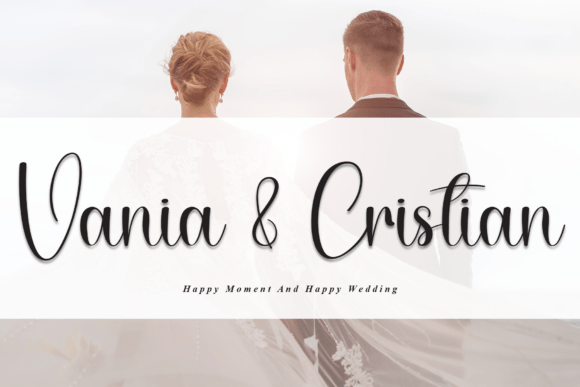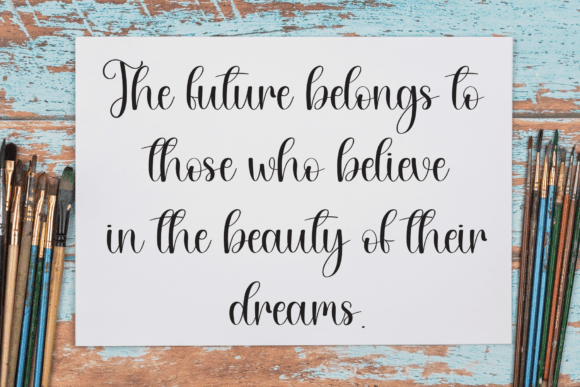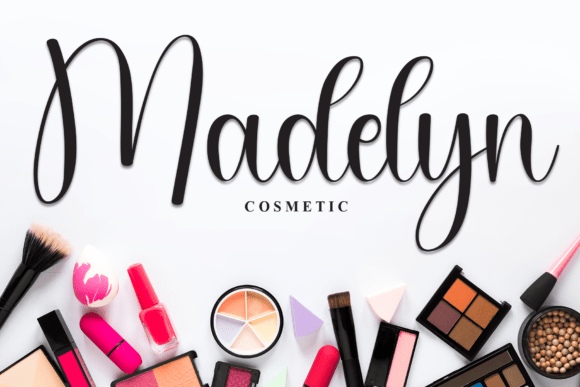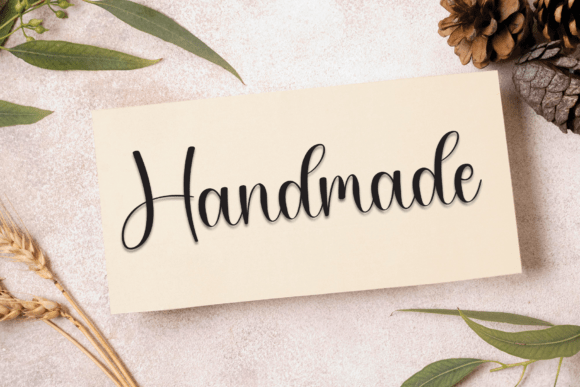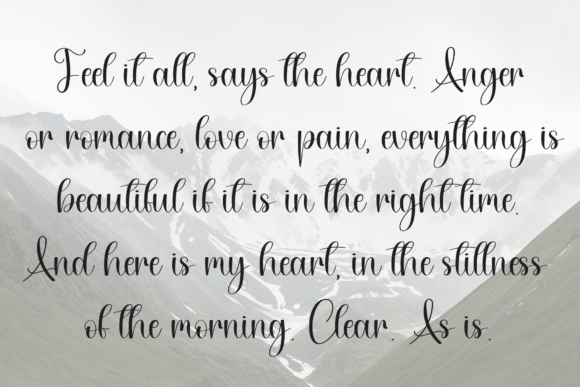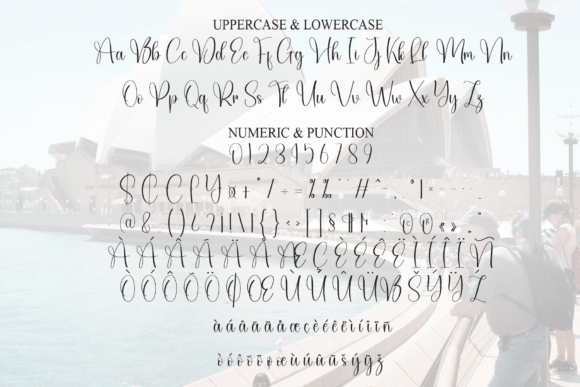
Australian Font: Elevate Your Design with Elegance and Modern Flair
In the world of typography, fonts play a crucial role in conveying the tone and personality of a brand, project, or creative endeavor. Among the myriad of font styles available, handwritten script fonts have gained immense popularity for their ability to add a personal touch to designs. One such font that has captured the attention of designers and crafters alike is the Australian Font. Described as a stylish handwritten script font, Australian combines elegance with a modern flair, making it an ideal choice for a wide range of applications.
The Charm of Australian Font
Australian Font is characterized by its flowing strokes and organic curves, which bring a sense of warmth and sophistication to any project. Its elegant appearance is balanced with a modern touch, making it versatile enough to be used in various contexts, from branding and invitations to social media graphics. This font’s unique blend of classic and contemporary elements allows designers to create visually appealing and engaging content that stands out.
Key Features of Australian Font
- Elegant Handwritten Script: Australian Font boasts a beautiful, flowing script that mimics the elegance of handwritten text, adding a personal and refined touch to designs.
- Modern Flair: With its subtle modern twists, this font ensures that your designs look current and appealing to contemporary audiences.
- Versatility: Its adaptability makes it suitable for a wide range of projects, including logos, invitations, social media posts, and more.
- Easy to Read: Despite its elegant and cursive nature, Australian Font maintains a high level of readability, making it practical for both digital and print applications.
Applications of Australian Font
The versatility of Australian Font makes it an excellent choice for various design projects. Here are some of the key areas where this font can make a significant impact:
- Branding: Use Australian Font to create a distinctive and memorable brand identity that communicates elegance and sophistication.
- Invitations: Whether it’s a wedding invitation, a birthday party invite, or any other special occasion, this font adds a touch of class and personal warmth.
- Social Media Graphics: Elevate your social media presence with eye-catching graphics that incorporate the stylish and modern feel of Australian Font.
- Packaging: For brands looking to stand out on store shelves, Australian Font can be used to create unique and compelling packaging designs.
Tips for Using Australian Font Effectively
To maximize the impact of Australian Font in your designs, consider the following tips:
- Pair with Complementary Fonts: For optimal results, pair Australian Font with fonts that complement its elegant and modern characteristics. Sans-serif fonts can provide a nice contrast for body text.
- Adjust Letter Spacing: Fine-tune the letter spacing to ensure that the text looks cohesive and aesthetically pleasing, especially in longer pieces of text.
- Consider Size and Weight: Be mindful of the font size and weight to ensure readability across different devices and mediums.
Australian Font is a stylish and versatile handwritten script font that brings a unique blend of elegance and modern flair to any design project. Its flowing strokes, organic curves, and refined appearance make it an excellent choice for designers and crafters looking to add a personal touch to their work. Whether you’re creating branding materials, invitations, social media graphics, or packaging, Australian Font is sure to elevate your designs and leave a lasting impression.